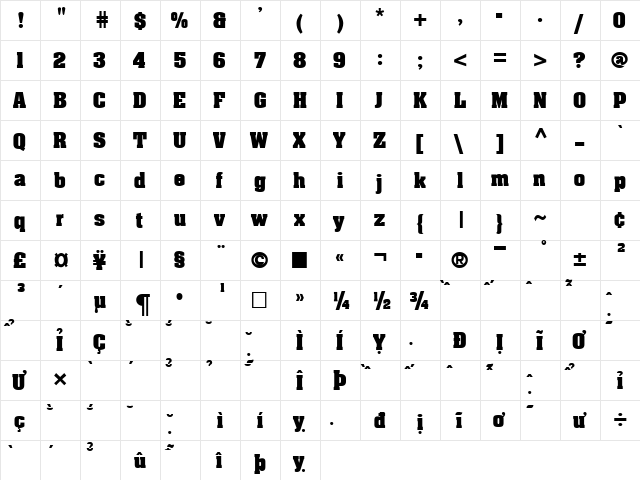
VNI-Awchon Bold Font Preview
VNI-Awchon Bold
Design Context for VNI-Awchon Typeface
VNI-Awchon takes a measured approach to typography — its balanced proportions and neutral character make it a reliable workhorse for both digital and print work. Its bold stroke weight gives it real presence on the page.